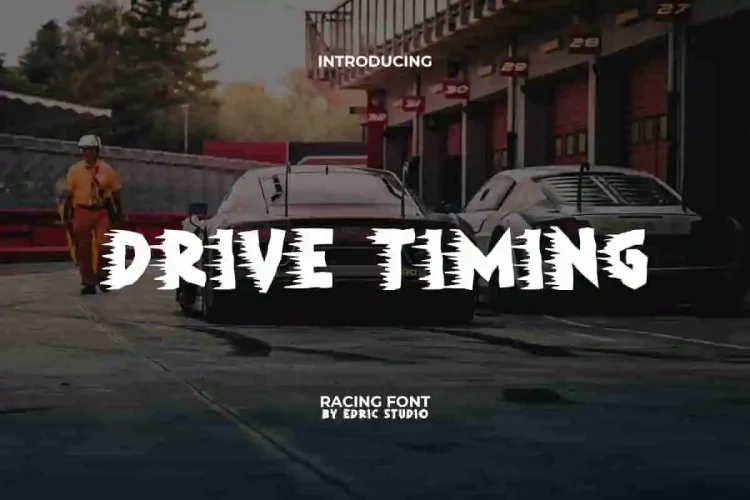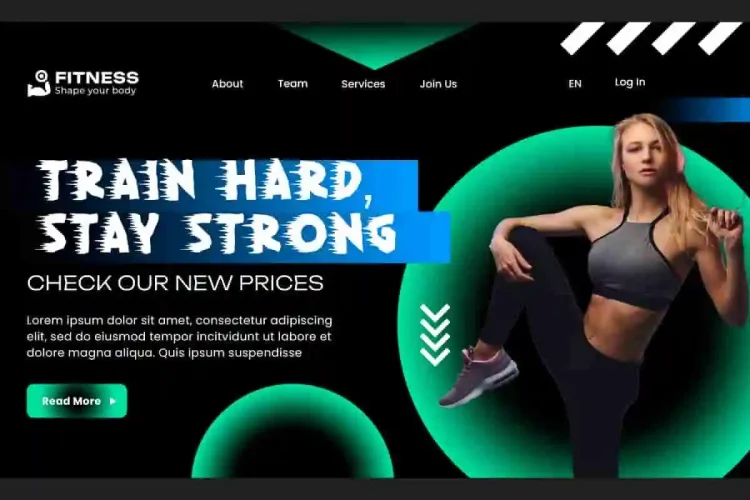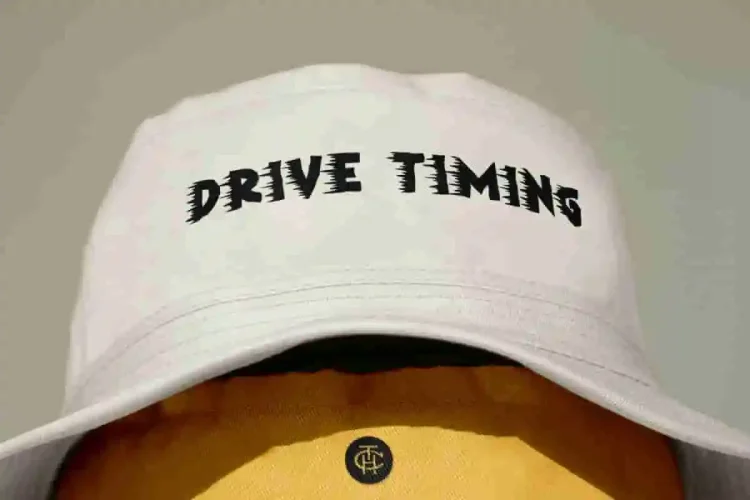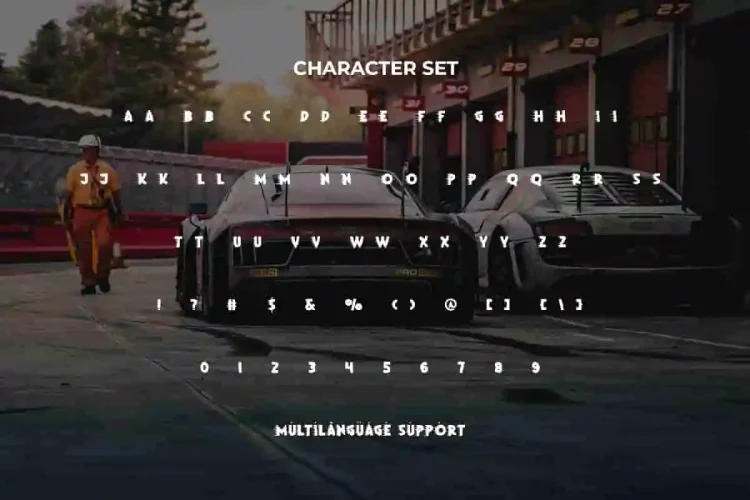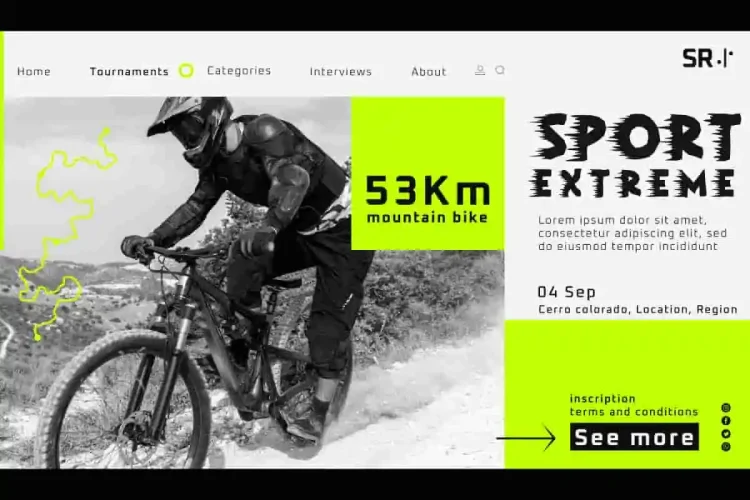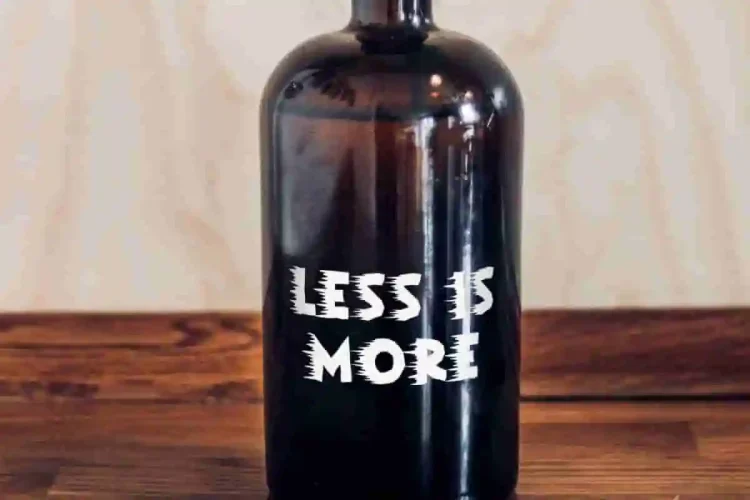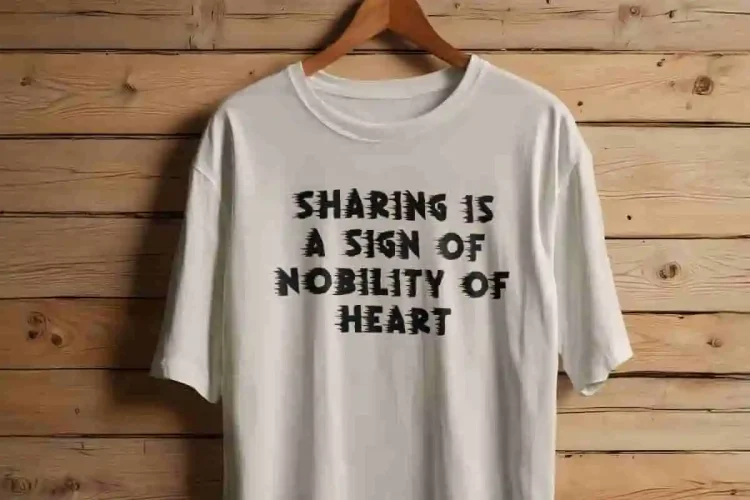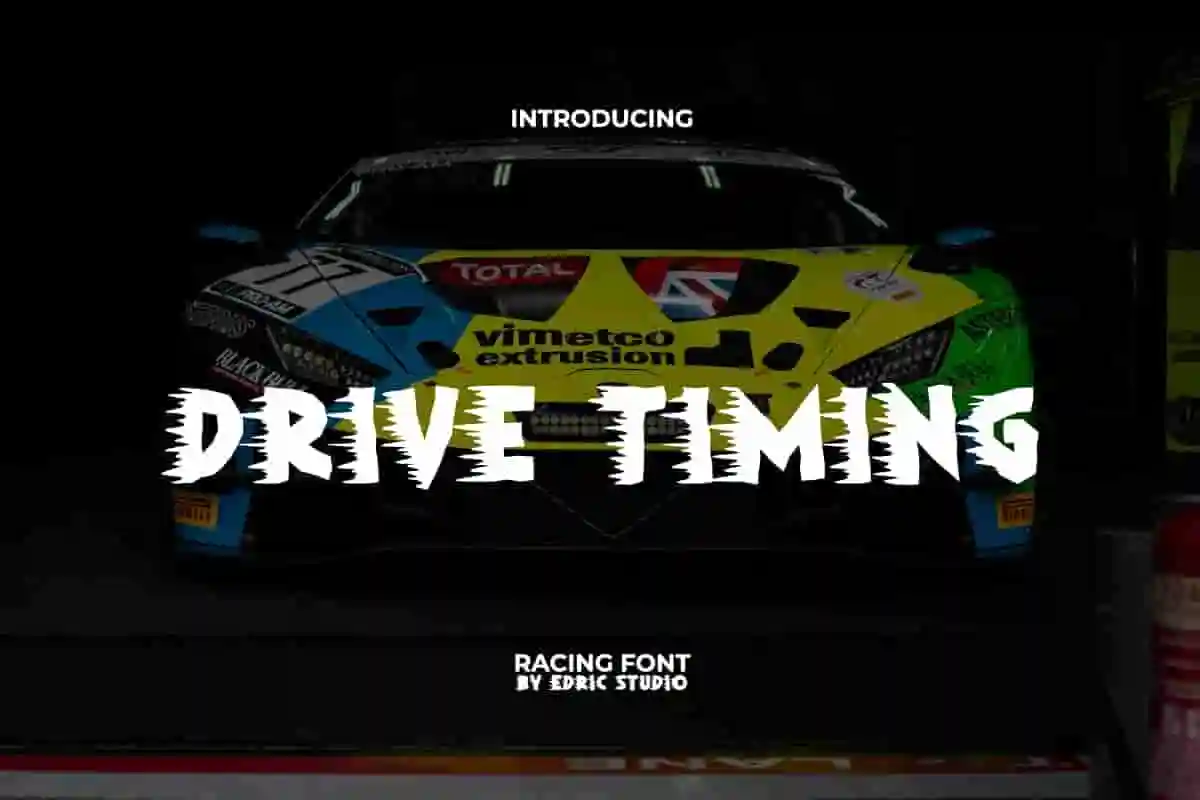
Drive Timing Font is a stunning racing display typeface with brush decoration inspired by bold and agile style. Inspired by thriller racing movies ready to add a fast element of surprise in your steering. The font is suitable for banners, blogs, brand logo, brochure, covers, flyer, headers, mockup, packaging design, poster, screen print, stationery, sticker, t-shirt, template, title, website, and many more.
Drive Timing Font includes full set of ALL CAPS for Uppercase and Lowercase Basic Characters, Numbers, Punctuation and Symbols. This aggressive typeface is fiercer with a vibrating energy. It creates a great visual appeal from its own letterforms created by professionals for your artwork or digital text. Feel the satisfying sensation when you type using this font! Perfect for accessories and merchandise, clothing brand, cycling, fashion, fitness studio, travel camp, etc.